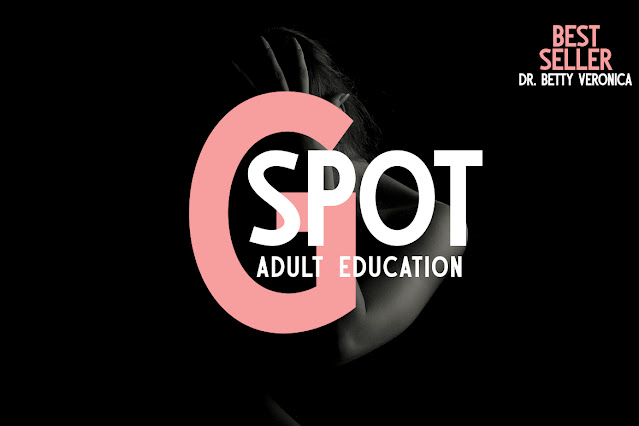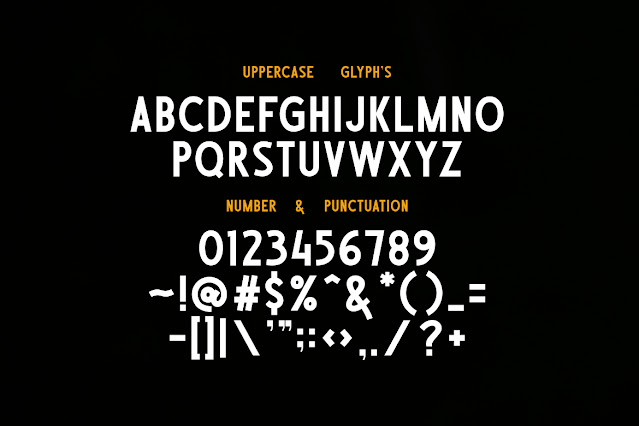
Mego Font
Mego is a bold and assertive sans serif font designed to make a statement. With its strong and confident letterforms, it brings a modern and striking feel to any creative project. Whether you’re working on posters, headlines, logos, or digital content, Mego ensures your message stands out clearly and powerfully.
This font’s clean lines and sharp structure add an energetic and professional touch to your work. Its readability at different sizes makes it versatile for both print and screen applications. Mego strikes the perfect balance between minimalism and impact, making it ideal for designs that need to capture attention instantly.
Whether you’re aiming for a sleek corporate identity or a trendy social media post, Mego adapts with style and strength. It’s the perfect tool to give your designs a dynamic presence and a bold personality that speaks loud and clear.